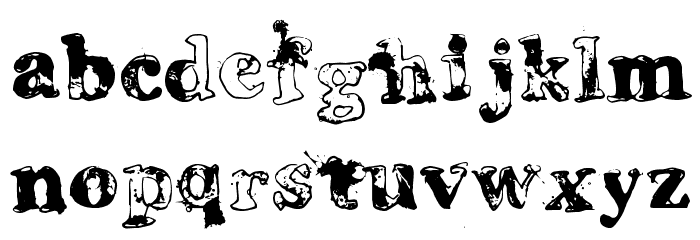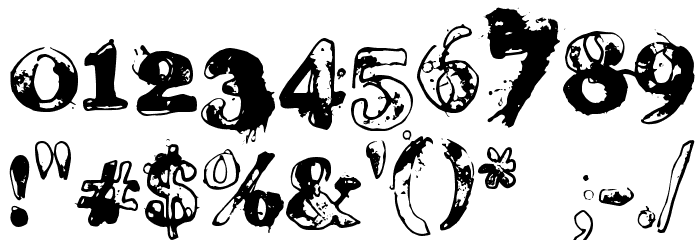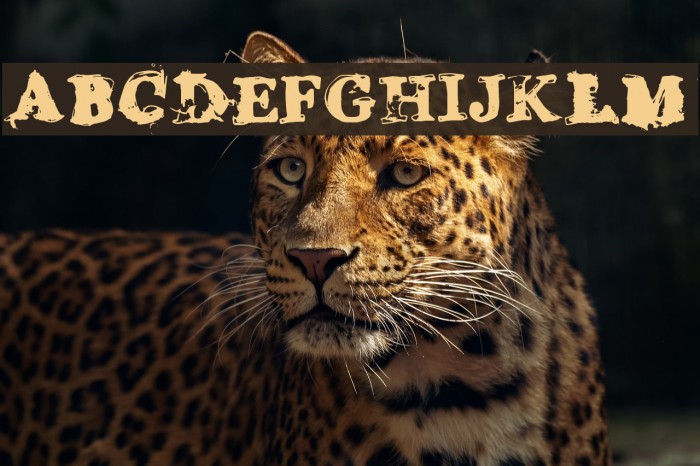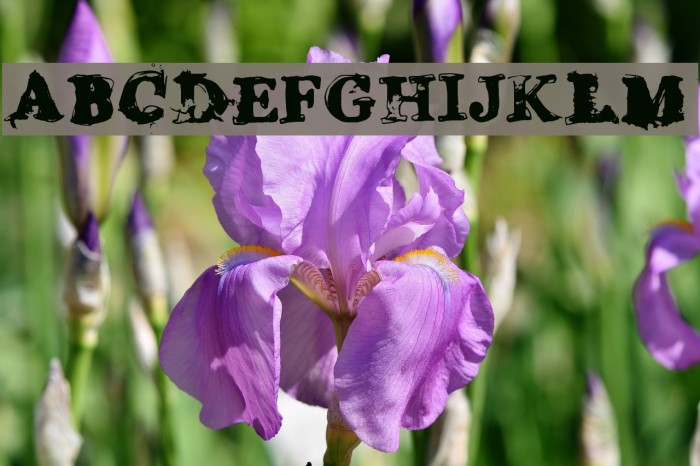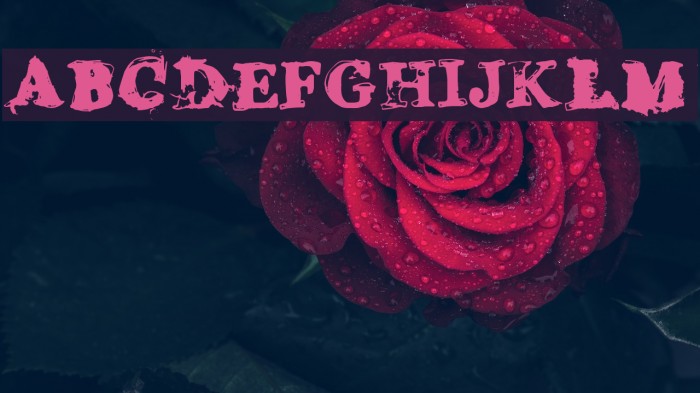
Grease Monkey Font
This font features a grungy, distressed style with a bold and rugged appearance. The characters are heavily textured, giving them a worn and weathered look, reminiscent of graffiti or urban decay. The uppercase and lowercase letters maintain a consistent style, with irregular edges and splatters that add to the chaotic aesthetic. Numbers and special characters follow the same design principles, ensuring a cohesive look across all glyphs. The font's unique style makes it stand out, perfect for projects that require a gritty, rebellious vibe.
A bold, grungy font with a distressed, textured appearance.
- Proposed Projects: Ideal for album covers, streetwear branding, posters, and urban-themed designs.
- Overall Style: Grunge, Urban, Distressed